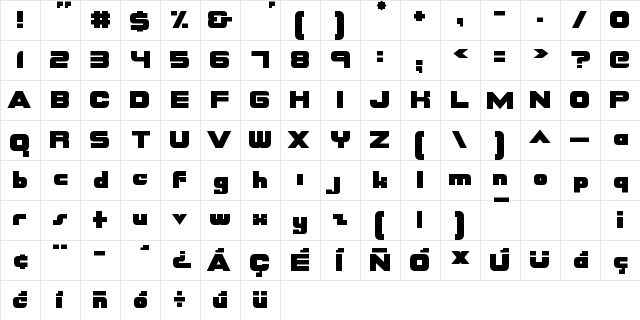
NASDAQER Heavy Font Preview
NASDAQER Heavy
NASDAQER Heavy Font Details
| Style | Heavy |
| Designer | Gustavo Paz L. |
Design Context for NASDAQER Typeface
NASDAQER offers clean, dependable letterforms without strong stylistic allegiance, making it a practical choice for designers who need flexibility.
Pro Tip: Pair NASDAQER with a font of contrasting weight or personality to build a more expressive typographic hierarchy.